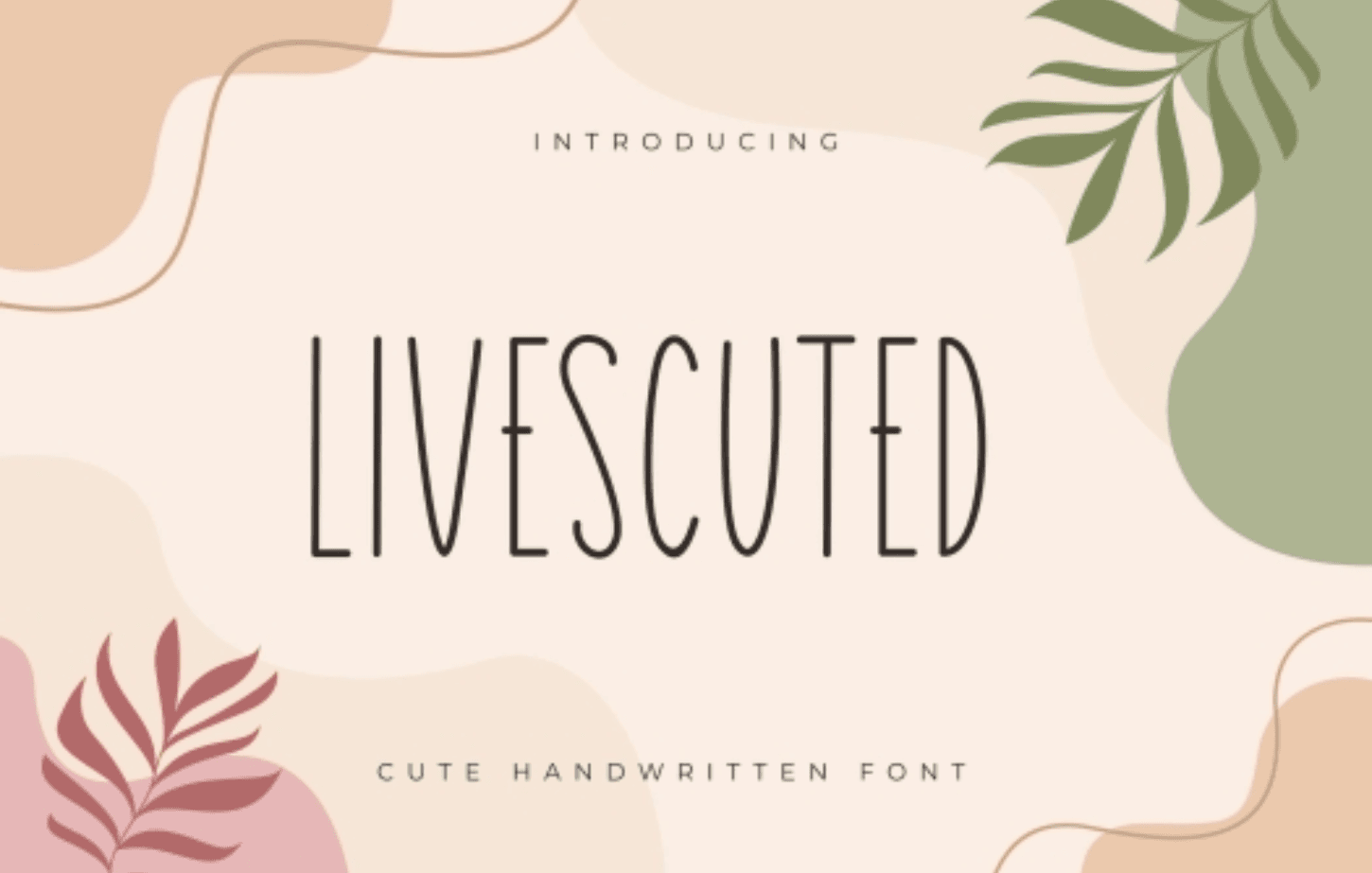
Livescuted Font
Spacing: Normal
Optimum Size: Any Size
Livescuted Font at your fingertips, you have the power to elevate your designs to new heights. This font is available in both OTF and TTF formats, making it easily accessible for all your creative endeavors. Its uppercase letters add a touch of sophistication and professionalism to any project, ensuring that your brand leaves a lasting impression. Let the Livescuted Font transform your designs with its contemporary charm and timeless appeal.